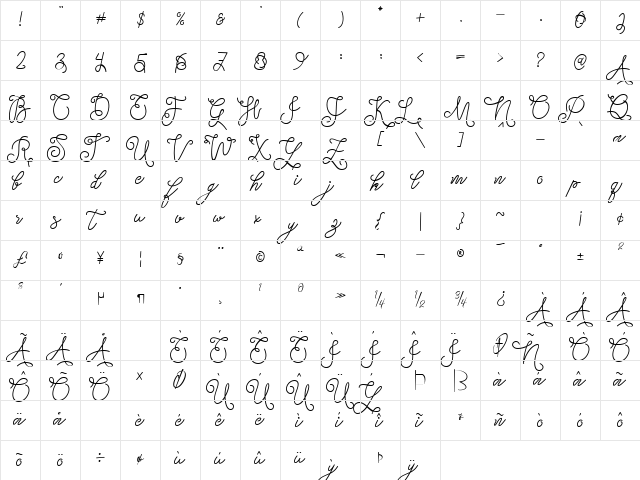
Tallahatse Regular
| Designer | Bright Rhtym Studio 2019 |
Design Context for Tallahatse Typeface
Tallahatse is a composed and adaptable typeface that performs quietly and consistently across a wide range of design contexts.